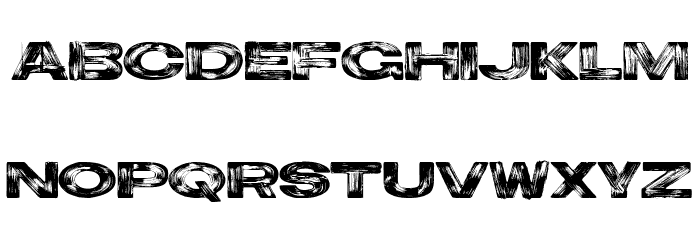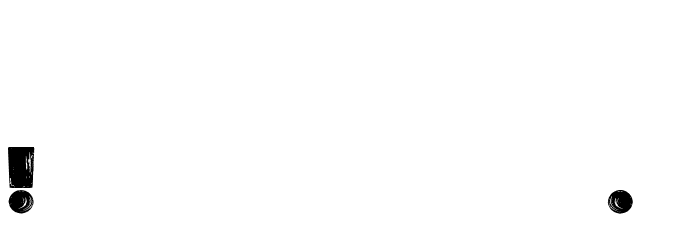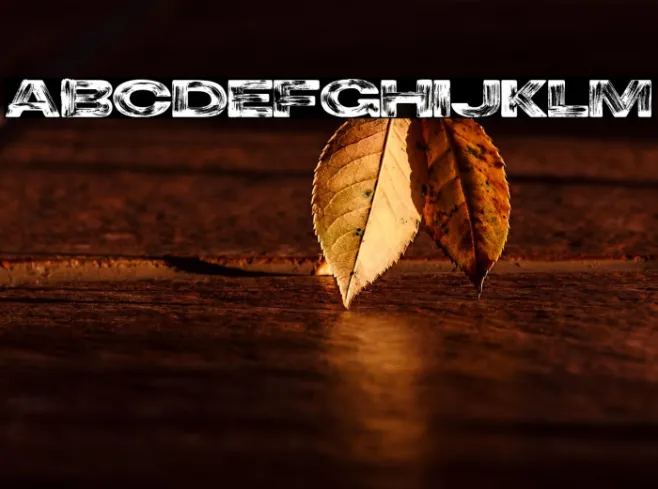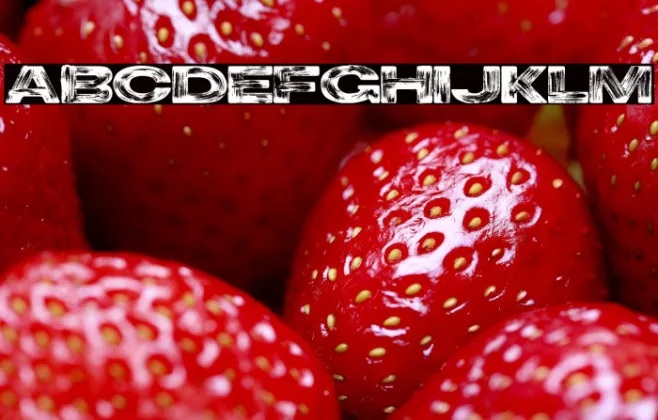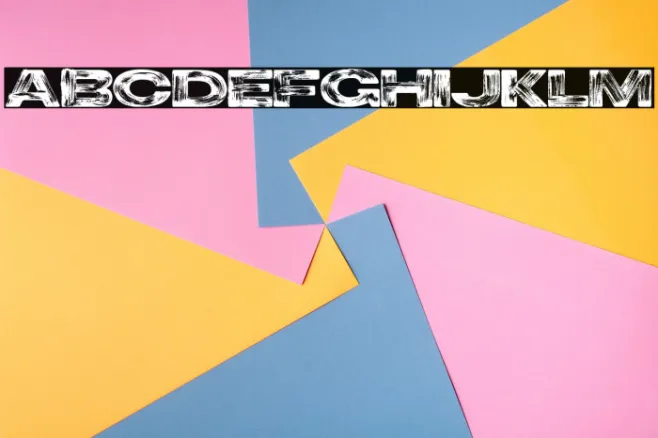
Ocean Grade Font
This font features a bold and textured design, reminiscent of ocean waves or distressed wood. Each character is filled with intricate, rough patterns that give it a dynamic and rugged appearance. The uppercase letters are prominent and commanding, while the lowercase letters maintain the same textured style, ensuring consistency across the typeface. The numbers and special characters also follow this unique design, making them stand out in any composition. This font's distinct style is perfect for projects that require a bold statement or a nautical theme.
A bold, textured font with a rugged, ocean-inspired design.
- Font: Ocean Grade
- Proposed Projects: Ideal for branding, posters, and designs with a nautical or adventurous theme.